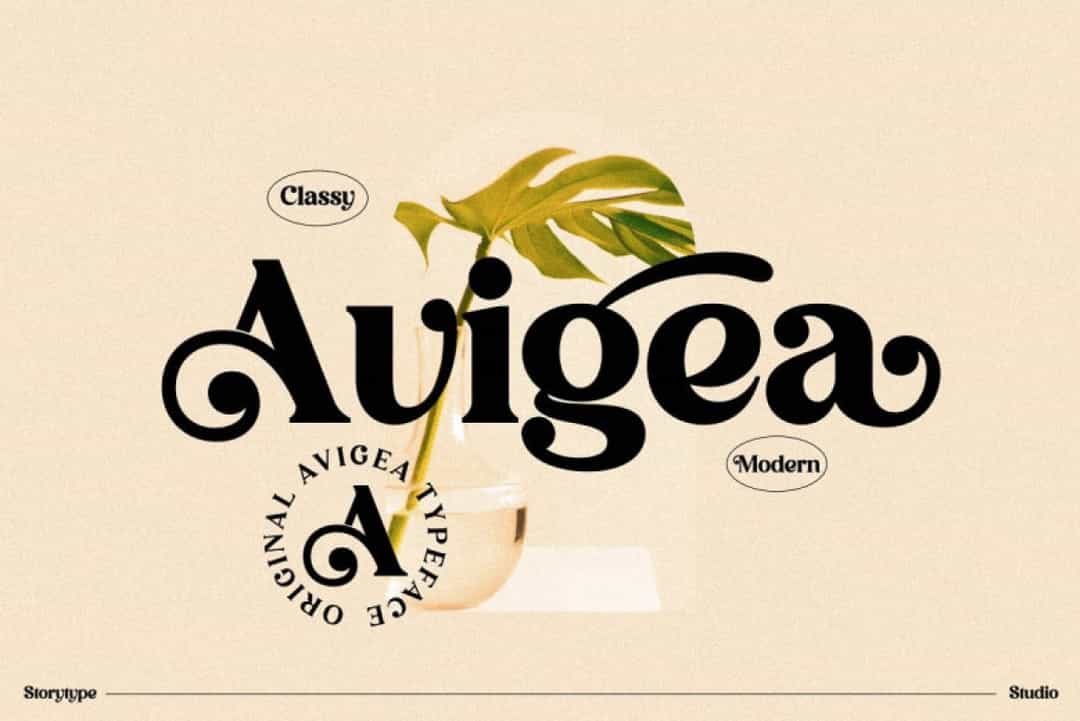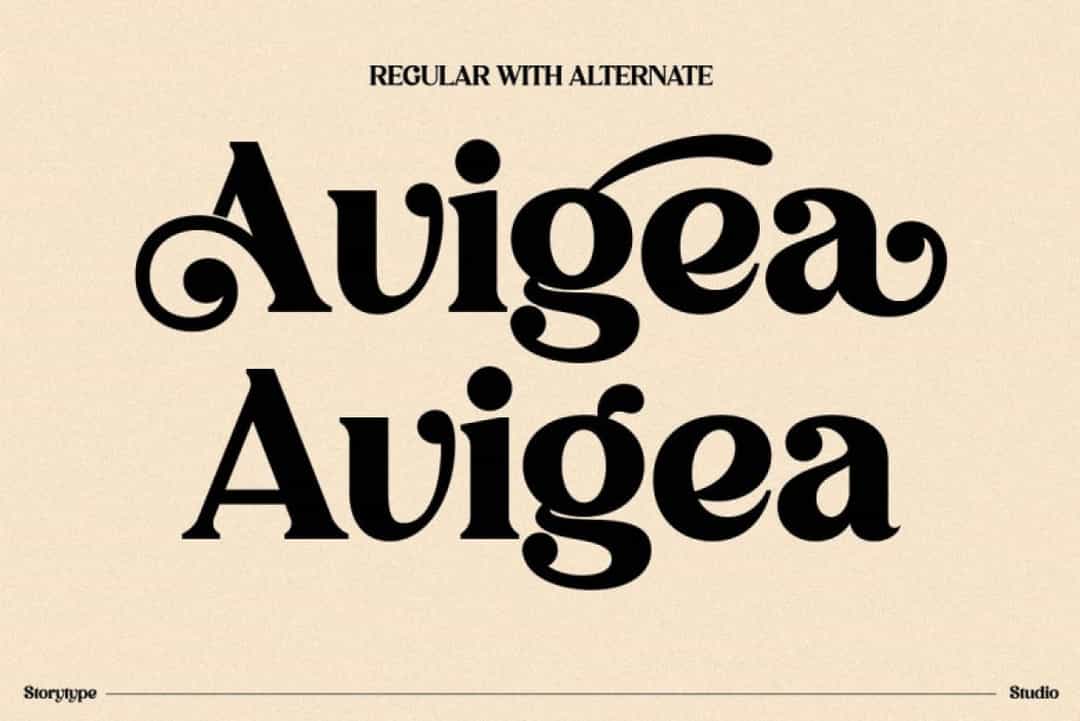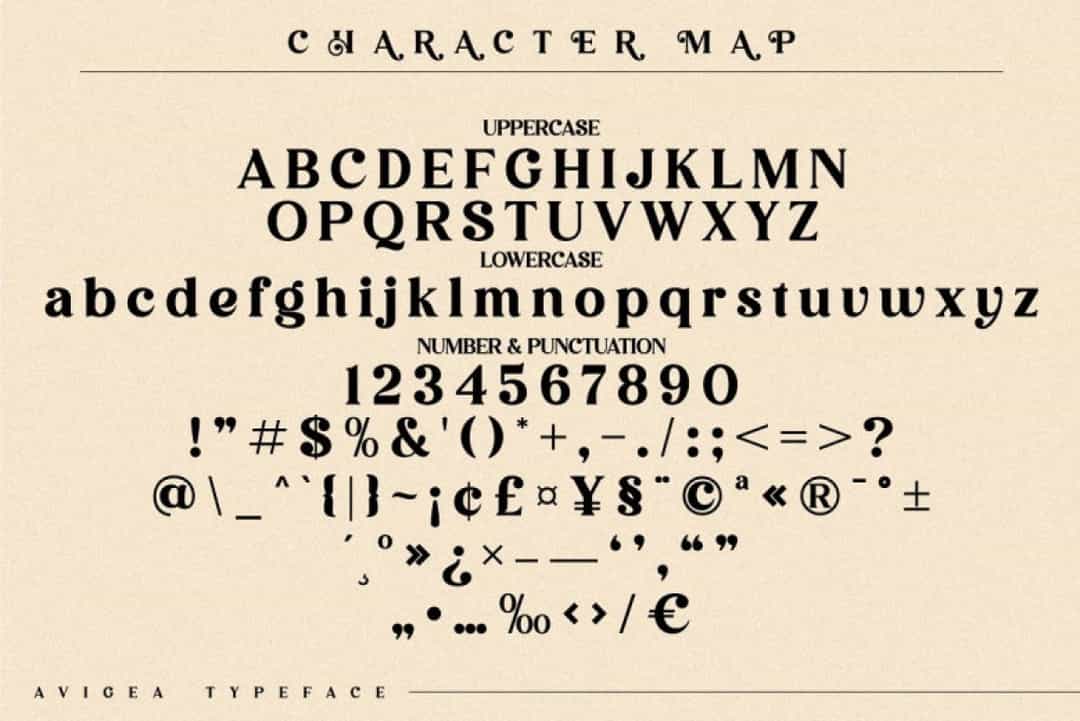
Avigea font by Storytype is an elegant modern and classic serif typeface with its distinctive style and contemporary appearance, making it ideal for use in logo design, movie titles, clothing brands logos, magazines letters quotes and much more.